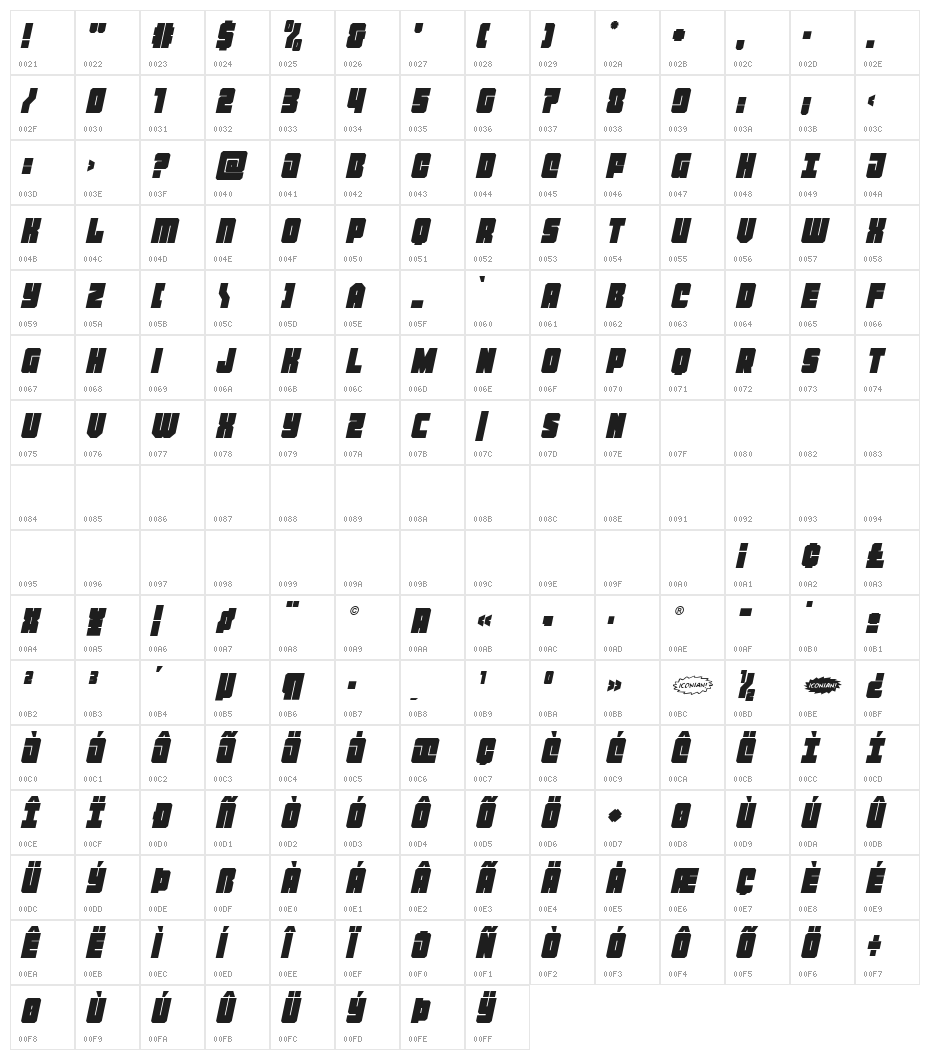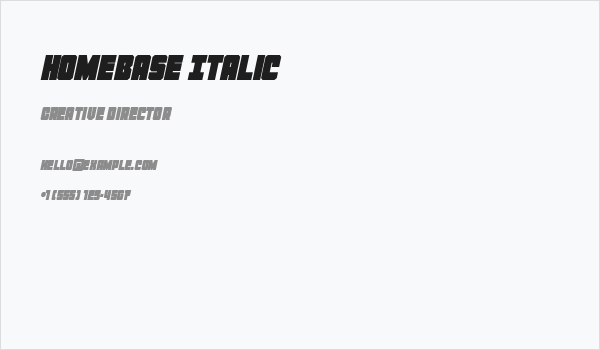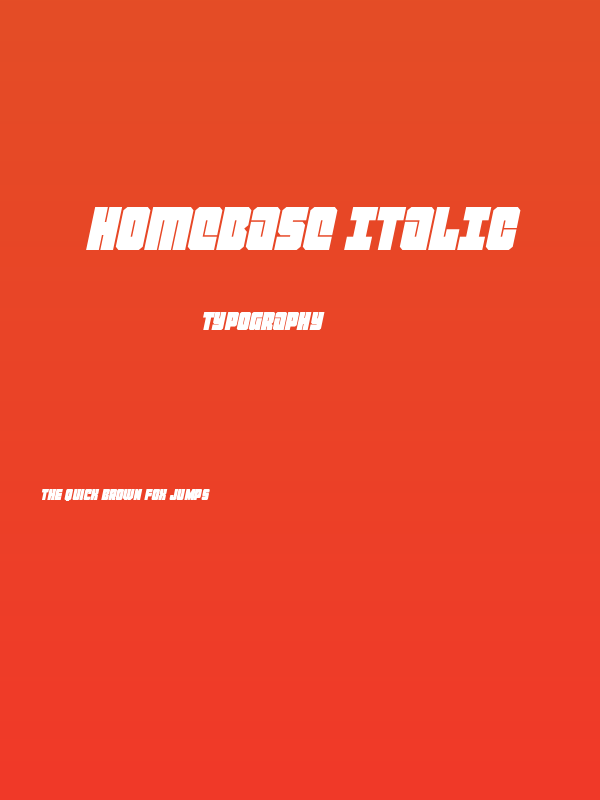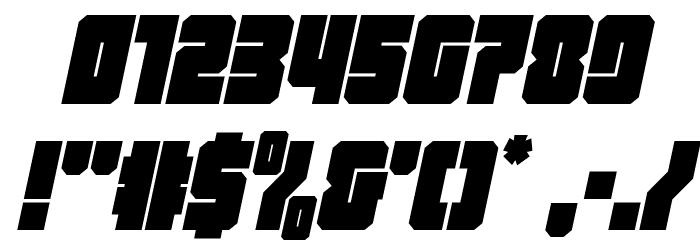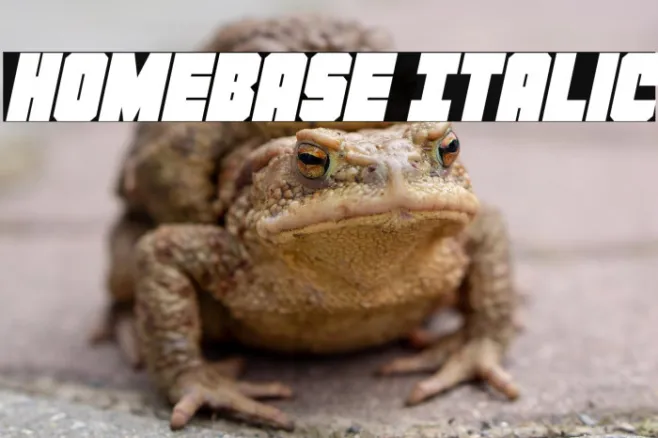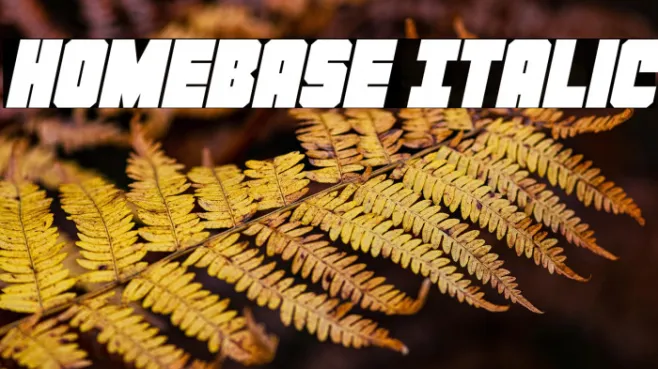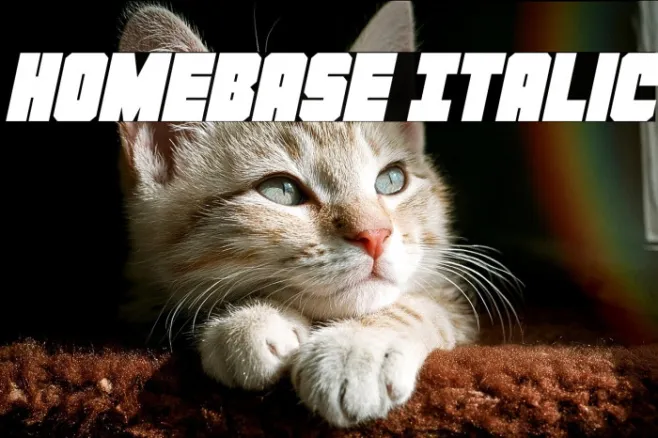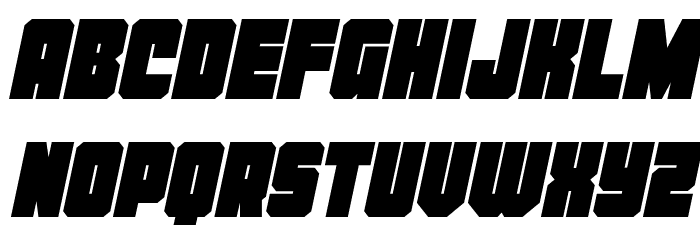
Homebase Italic Font
Homebase Italic Description
This font features a bold, italicized style with a strong, impactful presence. The characters are heavily slanted, giving a dynamic and forward-moving appearance. Each letter is constructed with thick, block-like strokes, creating a sense of solidity and strength. The angular cuts and sharp edges contribute to a modern and aggressive aesthetic, making it suitable for attention-grabbing designs. The numbers and special characters maintain the same bold and italicized characteristics, ensuring consistency across all elements.
| Proposed Projects | Ideal for sports branding, action-themed posters, video game titles, and dynamic advertising campaigns. |